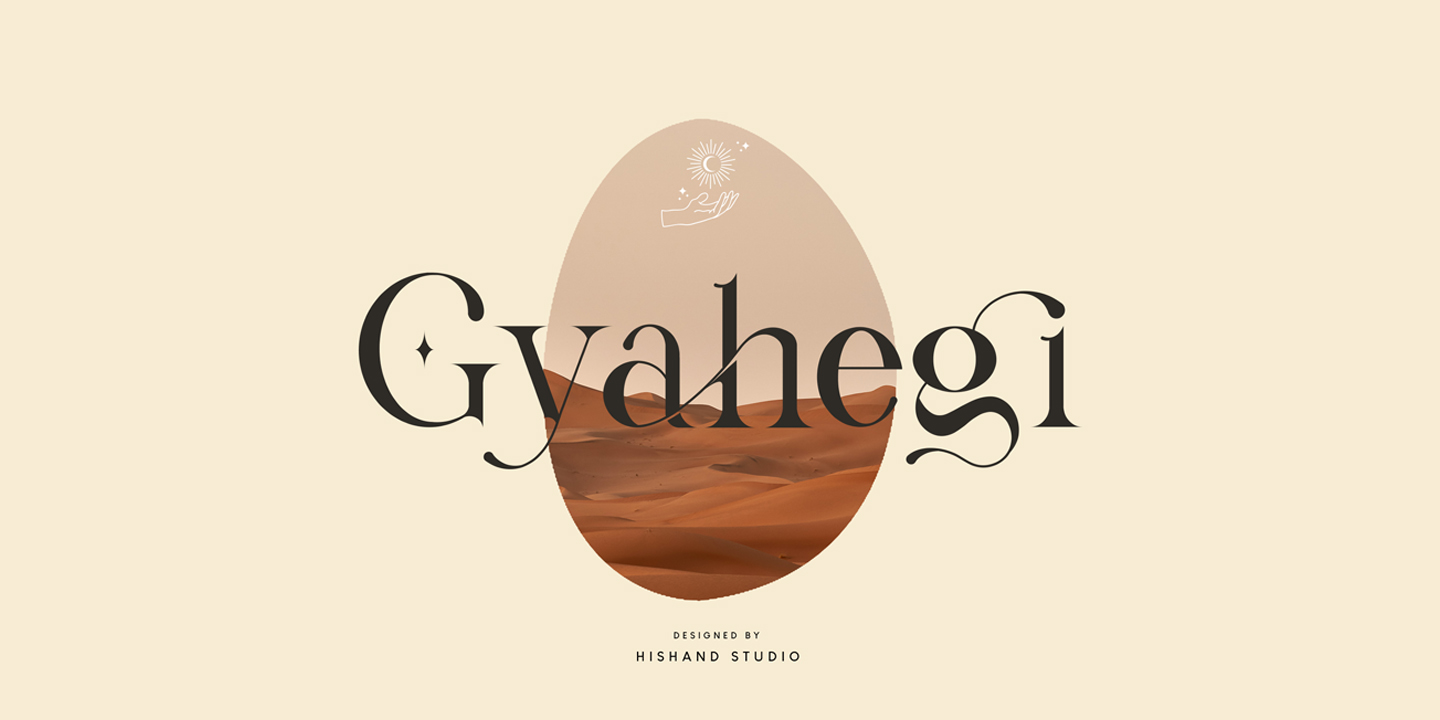
Gyahegi Font Free Download is a distinctive typeface that brings a powerful, modern, and often edgy aesthetic to any design project. Imagine it commanding attention on bold gaming logos, dynamic tech startup branding, impactful sports team merchandise, or futuristic movie posters. Its unique characteristics also make it an excellent choice for energetic music album covers, cutting-edge website interfaces, and striking apparel designs. Whether you're aiming for a strong, contemporary statement or a touch of unconventional style, Gyahegi Font offers the impactful presence to elevate your creative vision.
What makes Gyahegi Font truly exciting is its ability to blend high impact with surprising versatility. It often features sharp angles, unique letterforms, or a sense of dynamic movement that makes it instantly recognizable and memorable. This isn't just another display font; it's a meticulously crafted typeface that injects a bold personality and a modern edge into any text. Designers will appreciate its strong visual appeal and how it can instantly infuse a design with a sense of dynamism and forward-thinking style, making it a powerful tool for projects that demand attention and a contemporary feel.
The Gyahegi Font family, while often celebrated for its distinct display qualities, typically provides a range of weights to enhance its usability across different design needs. You might find standard weights such as Regular and Bold, with some families possibly including lighter or heavier variations to offer more flexibility. Additionally, some versions might include stylistic alternatives or ligatures that further expand its creative potential. This variety within the family ensures that Gyahegi Font Free Download can be adapted for both prominent headlines and supporting text elements where a consistent stylistic voice is desired.